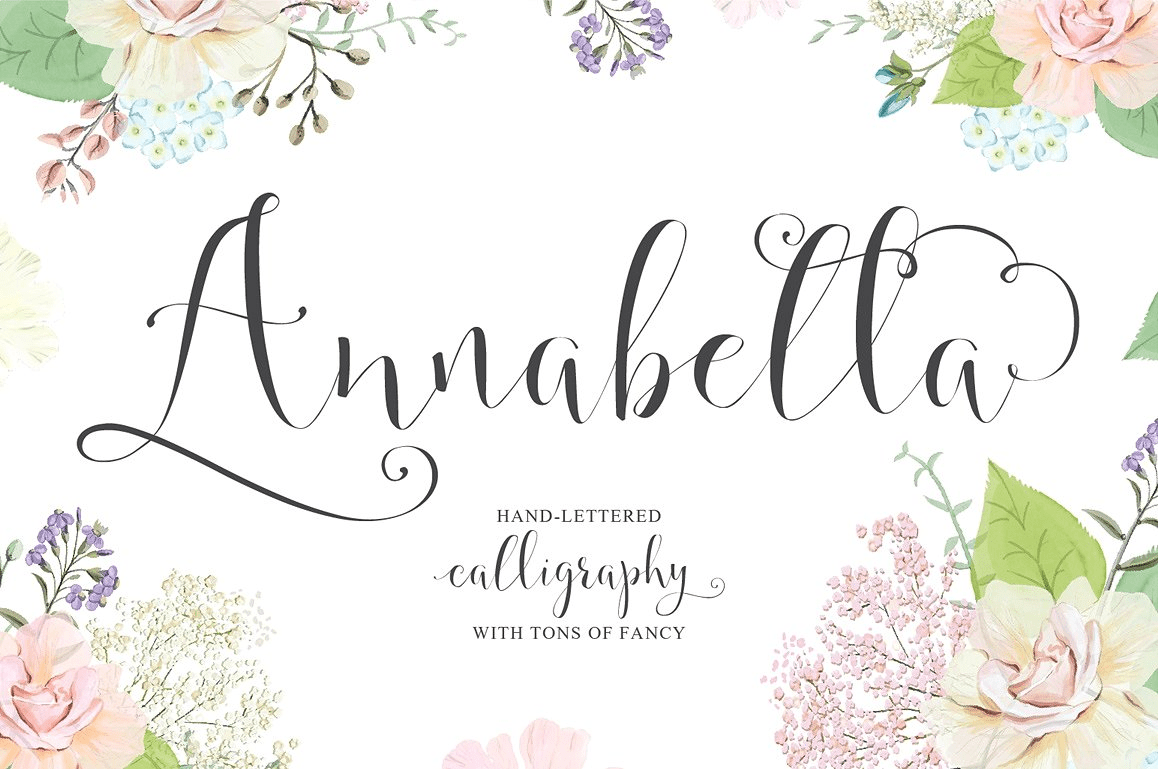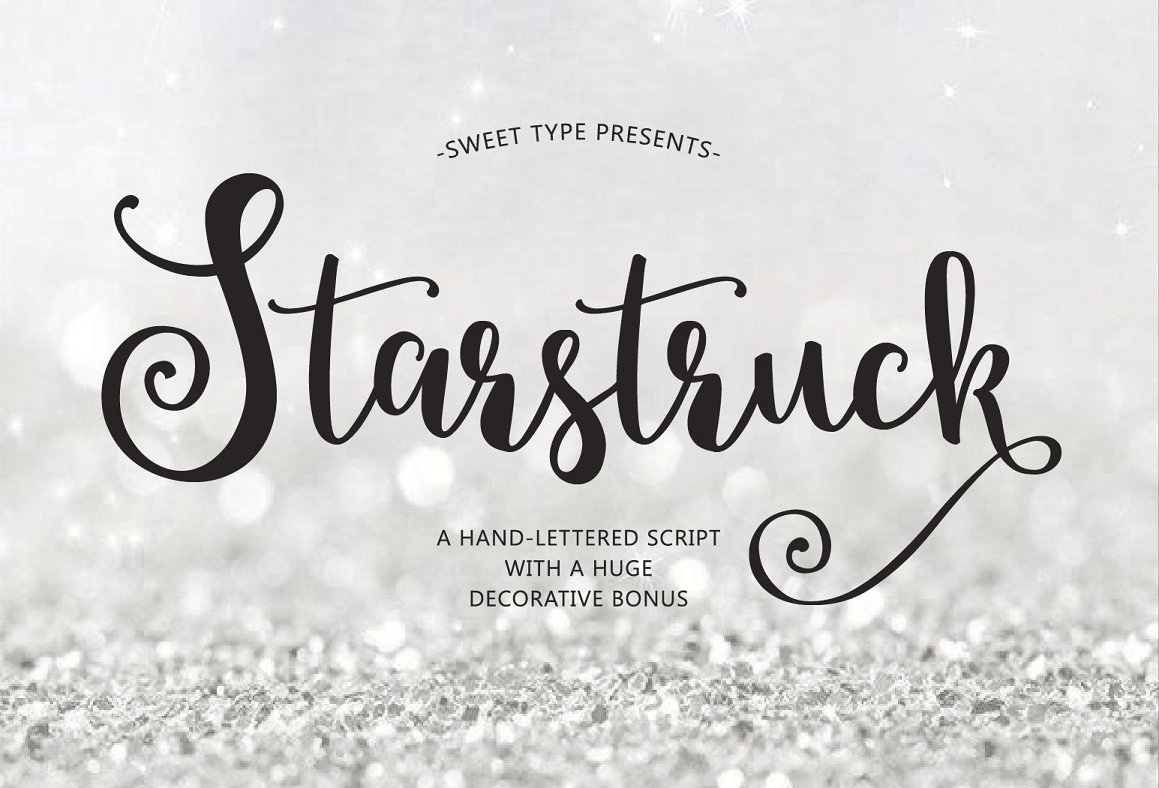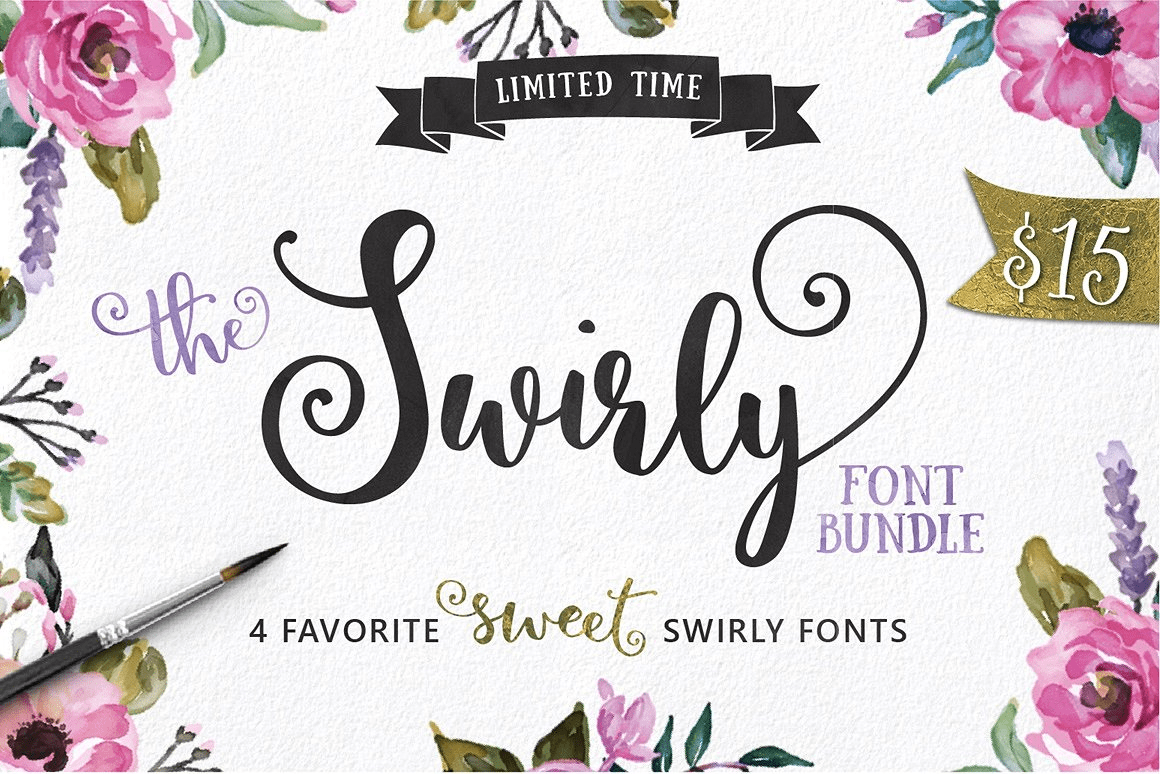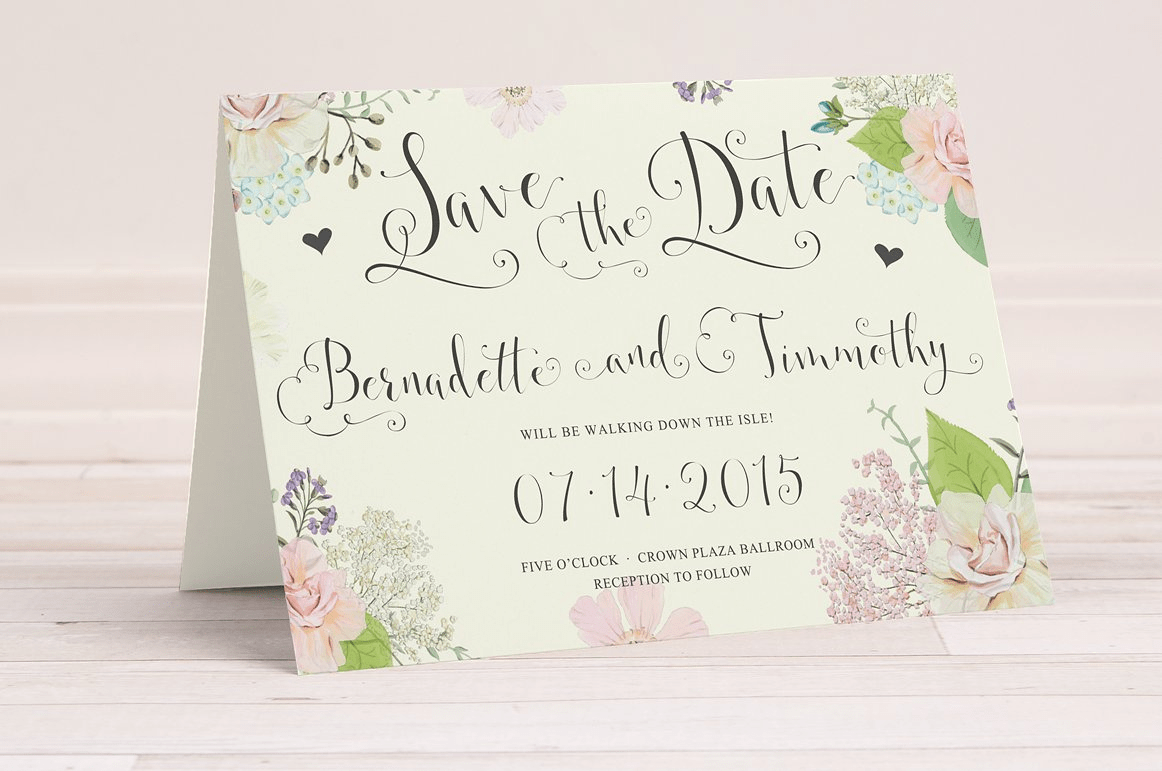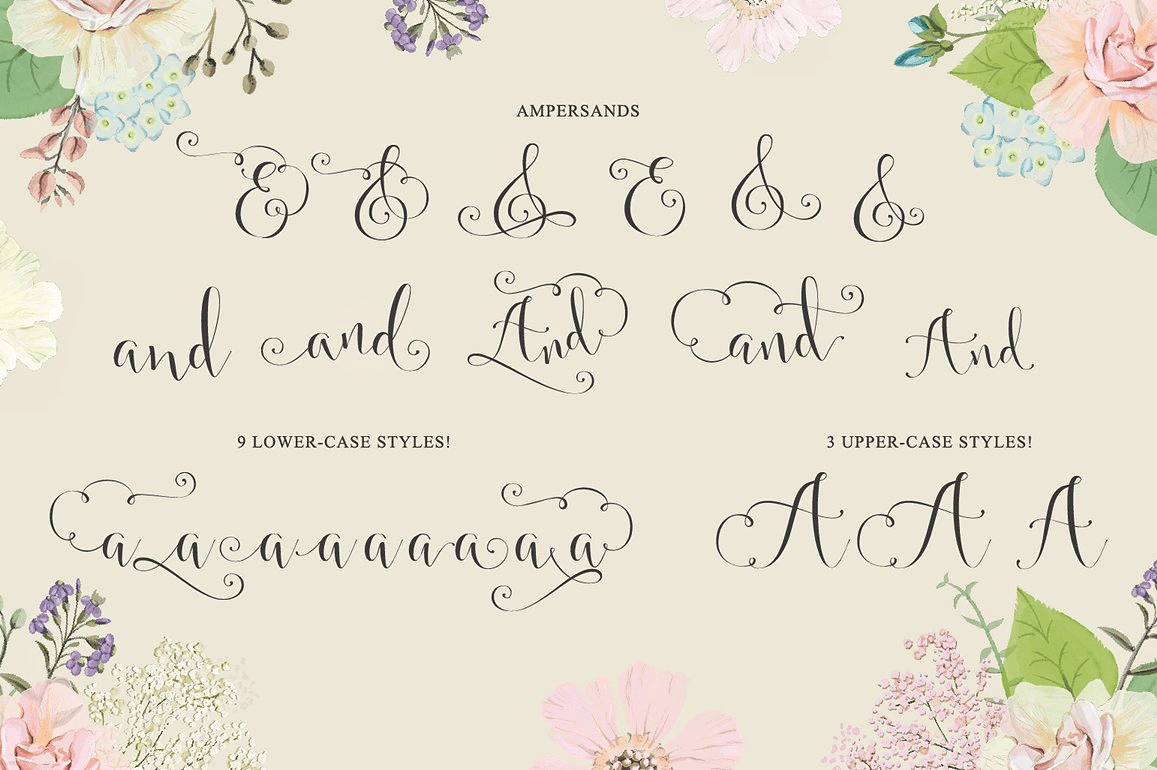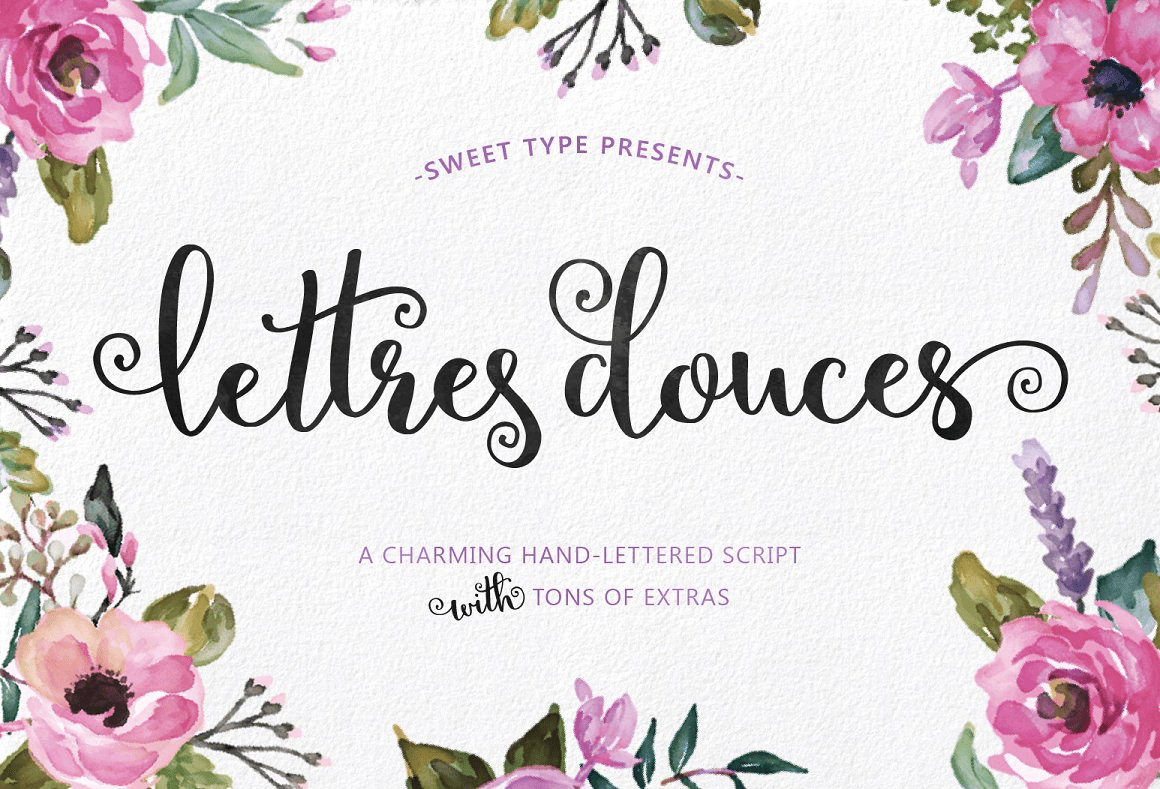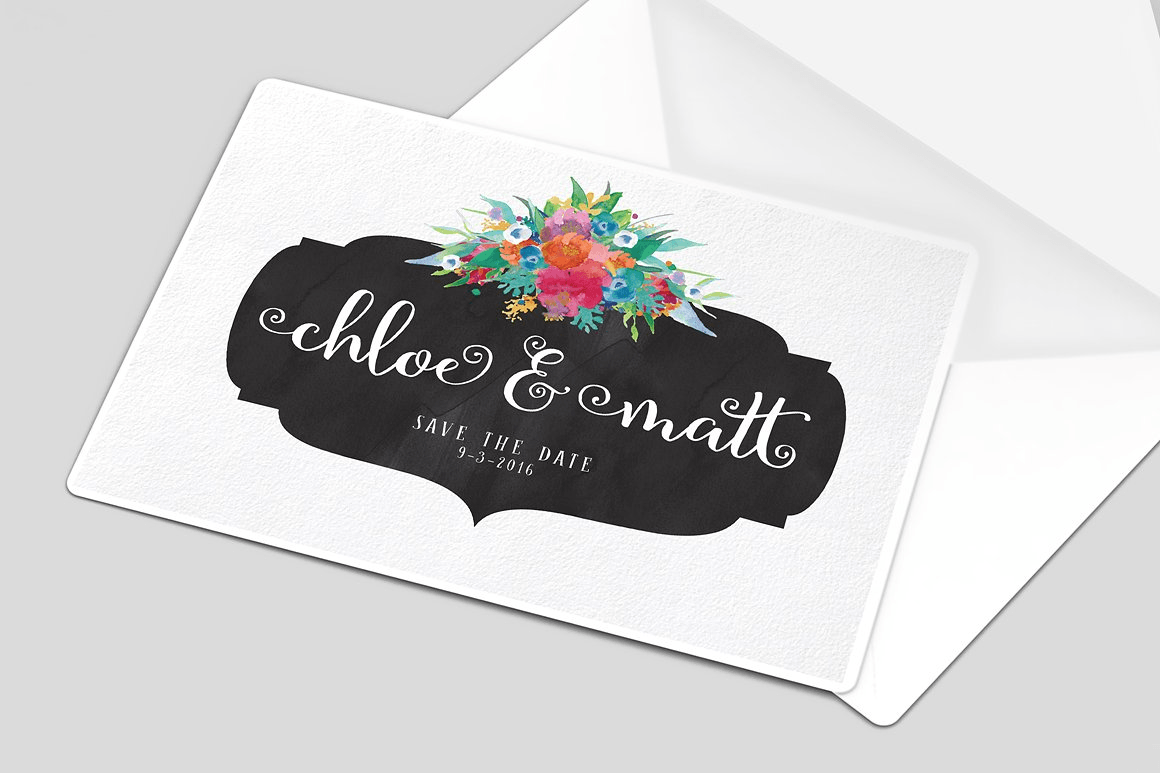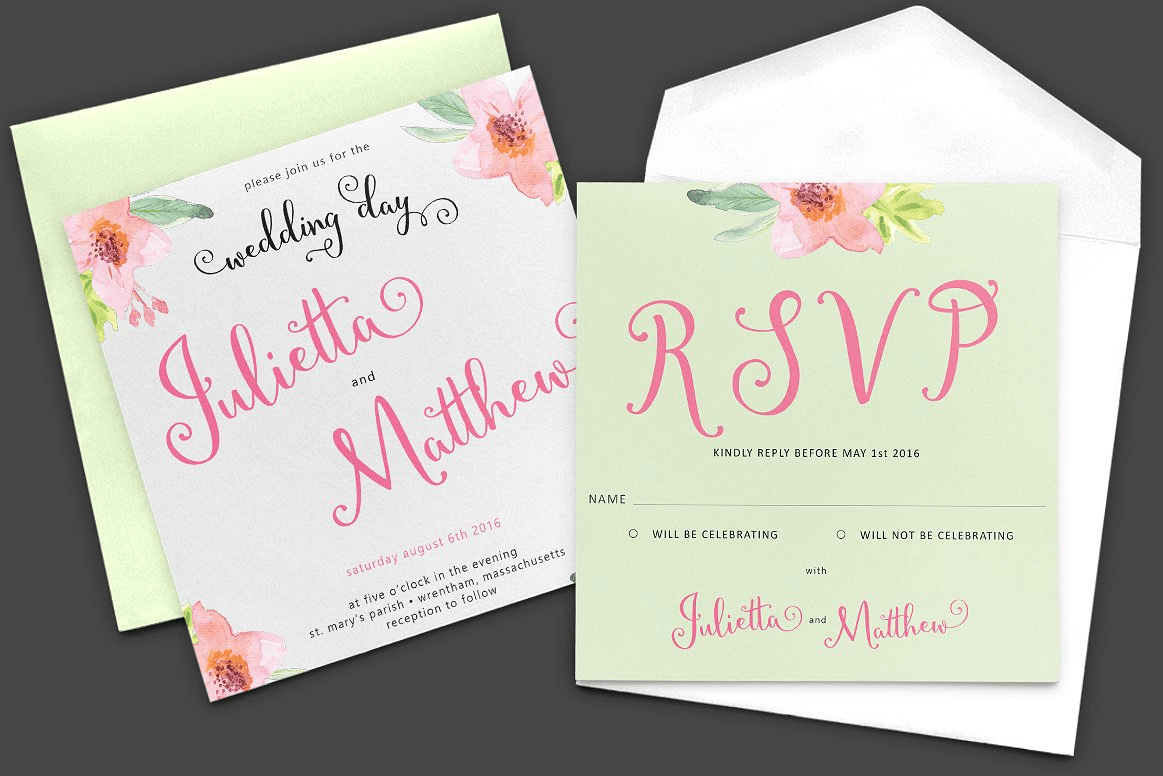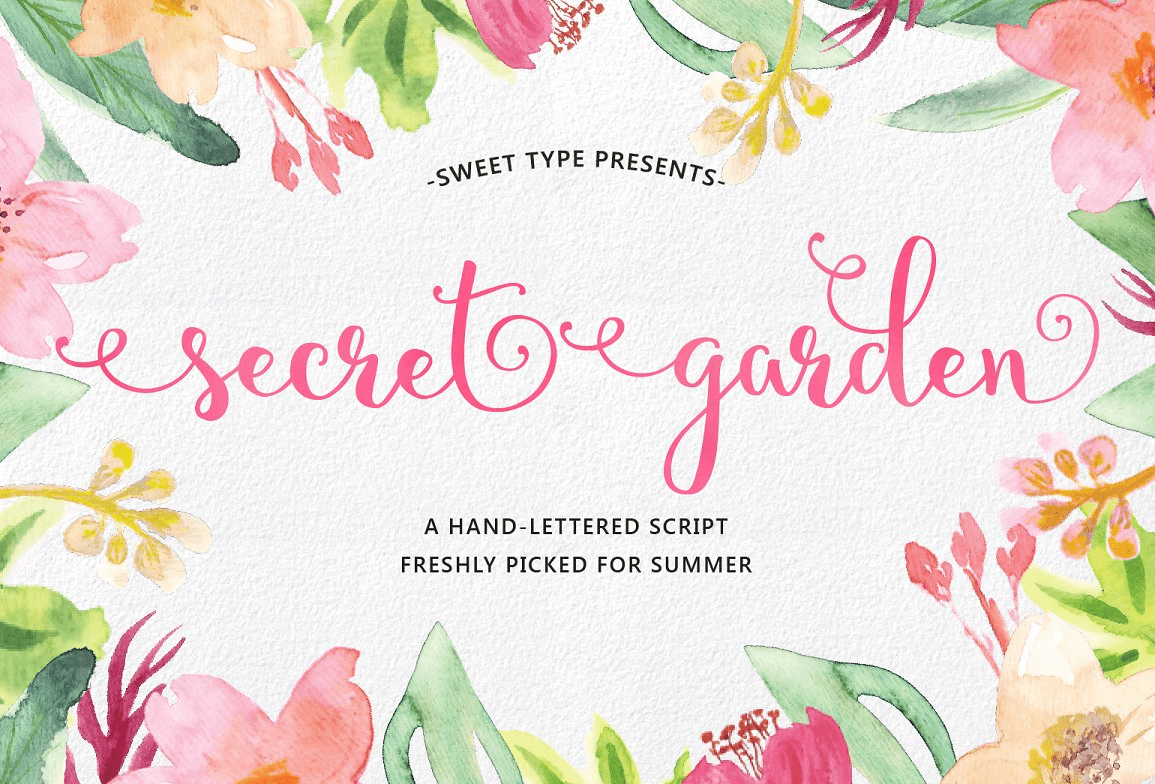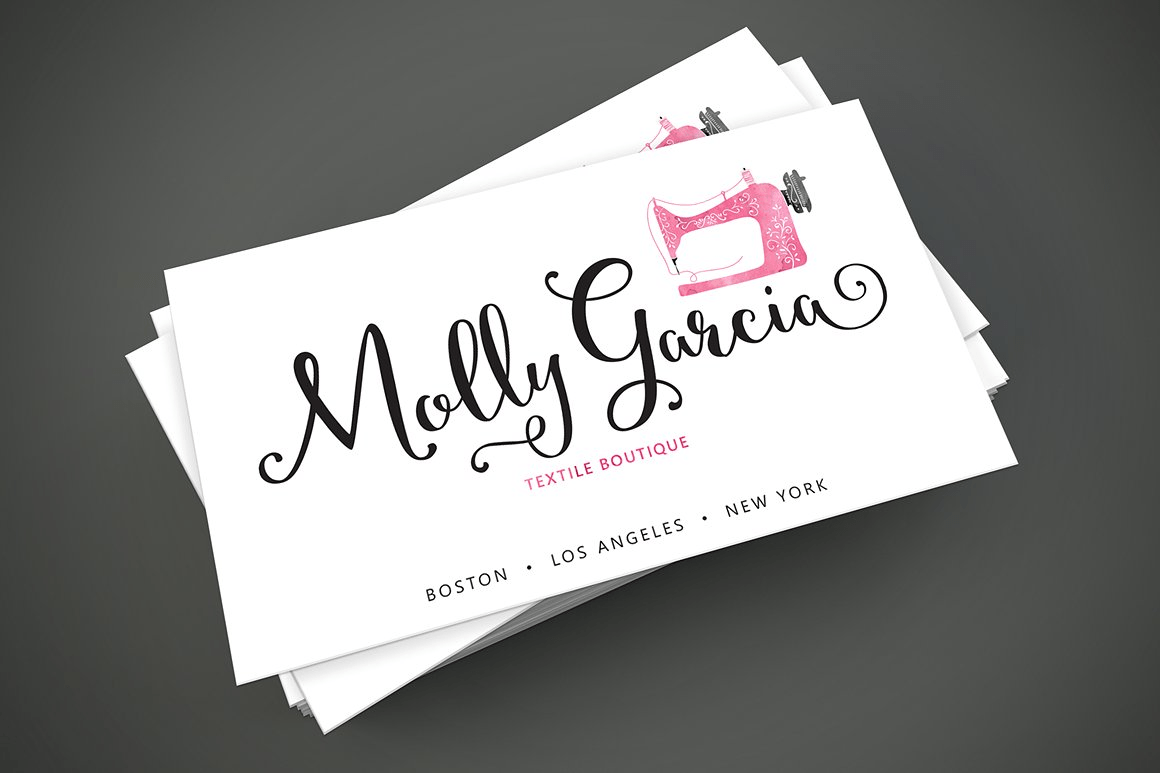
Swirly Bundle
Here it is! The Swirly Font Bundle! 4 Fonts for the price of 1! I've bundled up 4 of my best selling sweet swirly fonts at one really sweet price just for you! The perfect combination of charming, feminine, decorative, hand-lettered typefaces. This carefully curated bundle (with hundreds of swirly extras) will instantly transform your font library from boring to bling.
All decorative characters and alternate glyphs have been included in separate files, and are easy to access in even the most basic of programs! You'll have so much fun creating your own hand-lettered text styles with this font library. Al of these darling fonts include "left" and "right" font files to easily add decoration to any word.
The are super easy to use. Just highlight the letter you want to change and choose Left or Right. Many of the alternates have swirls that dip below the baseline and will fit nicely in the middle of the words. too! ALT-files work the same way. Just highlight the letter and choose the alternate key from the file of choice.